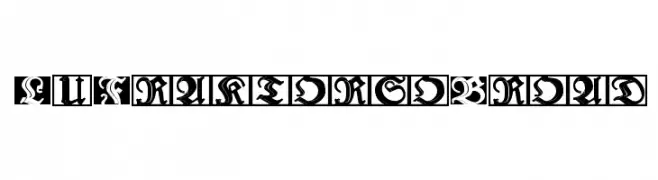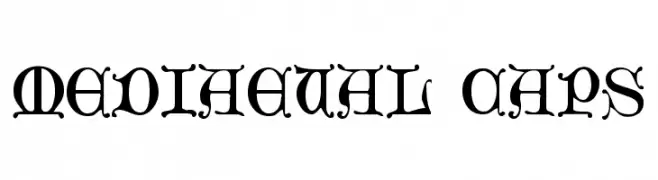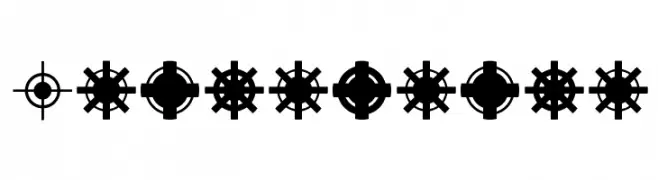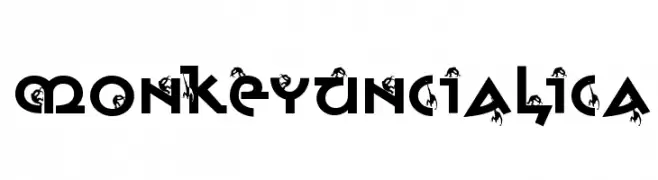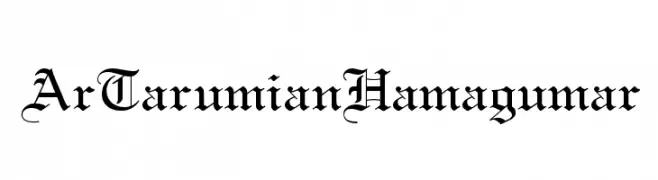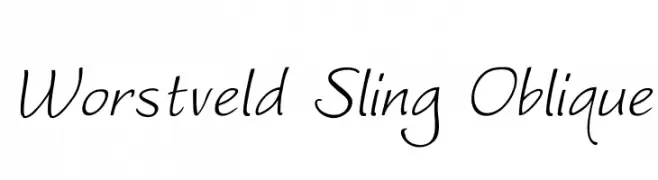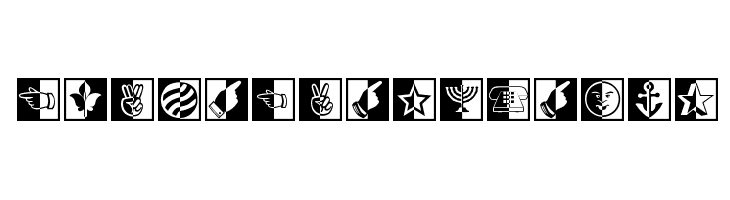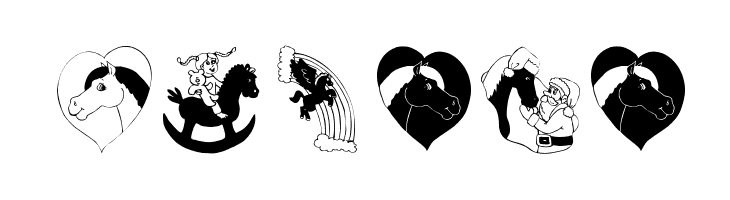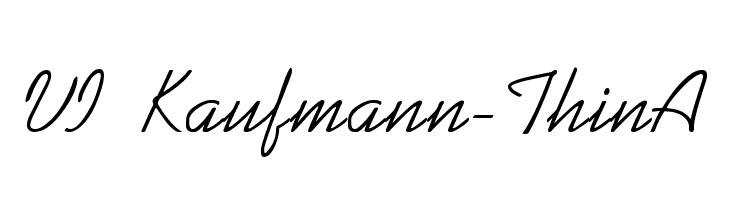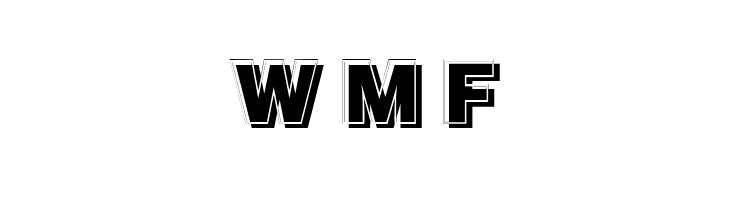
A bold, decorative Blackletter font with intricate, boxed characters.
A bold outlined sans-serif font with a modern and clean design.
Ornamental symbol set with geometric and floral motifs.
An ornate, medieval-style font with intricate flourishes and Gothic influences.
A bold, jagged font with sharp, angular shapes for a dynamic look.
An illustrative, cartoon-style decorative font with unique artwork for each character.
A playful, decorative font with whimsical monkey elements in each character.
A cursive, oblique font with a flowing, elegant style.